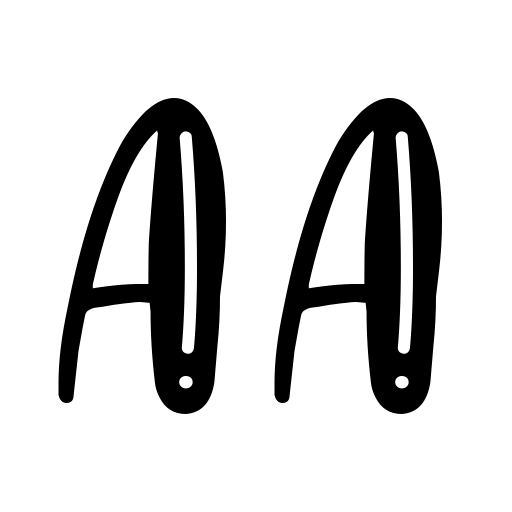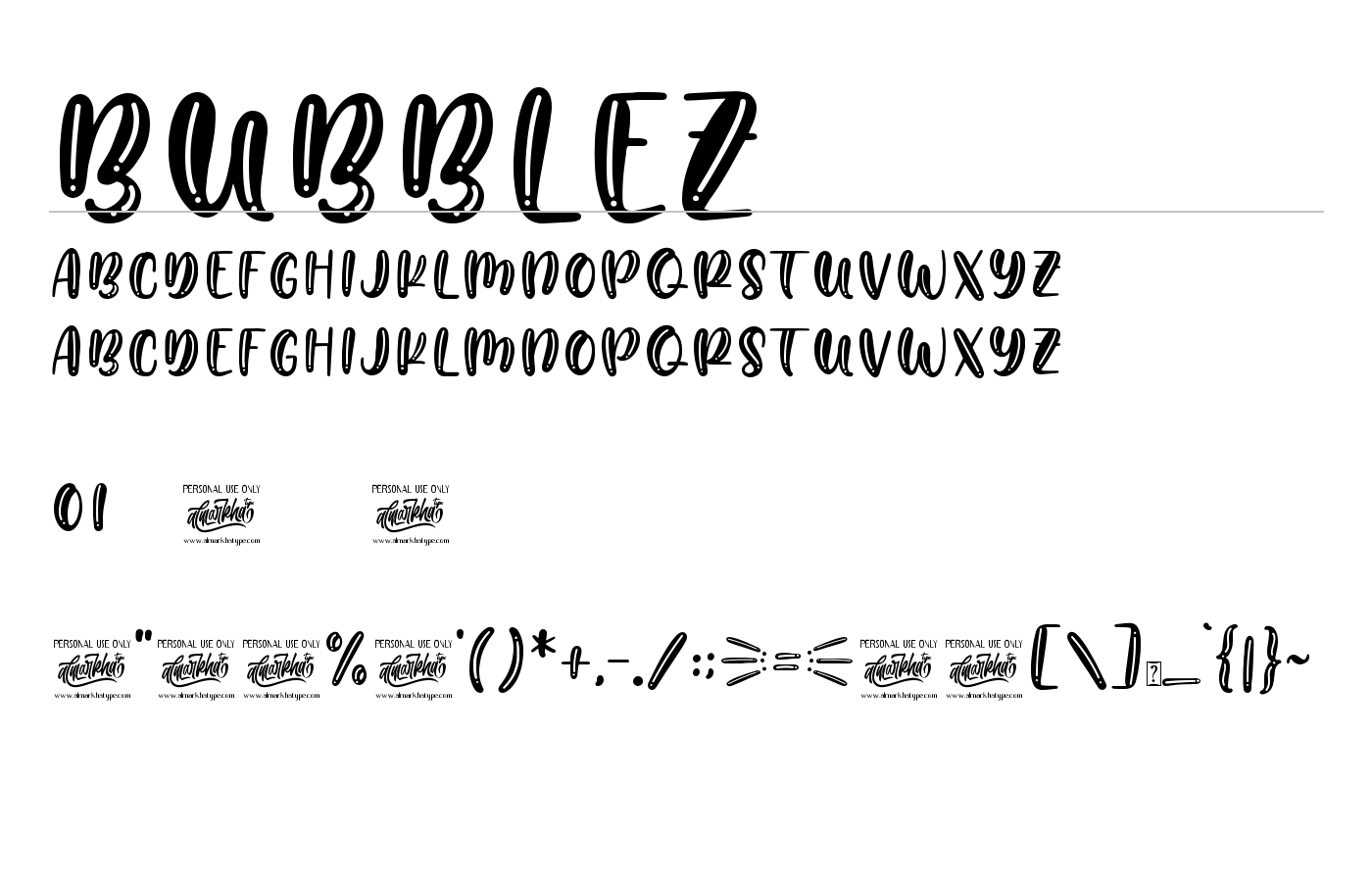
Bubblez is a playful, hand-drawn script font with a lively and bubbly character, featuring rounded, thick strokes and whimsical dots that give it a fun and informal vibe. Its casual, friendly style works great for creative projects, children’s designs, invitations, and branding that seeks a lighthearted and approachable feel. This font shines in headlines, logos, and packaging where a joyful and energetic impression is desired.
Bubblez Font
About Bubblez Font